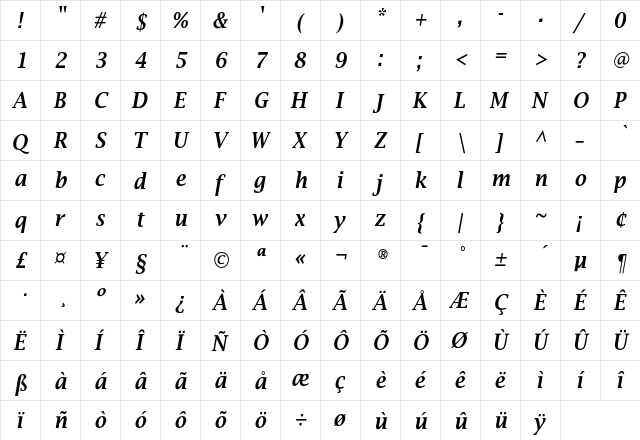
LucidaBrightNarEF DeBolIta
Design Context for LucidaBrightNarEF Typeface
LucidaBrightNarEF offers clean, dependable letterforms without strong stylistic allegiance, making it a practical choice for designers who need flexibility.
Pro Tip: Pair LucidaBrightNarEF with a font of contrasting weight or personality to build a more expressive typographic hierarchy.